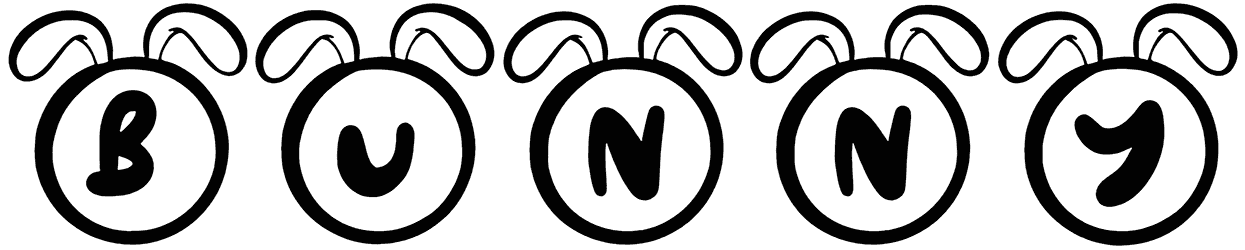
Bunny Font
With an adorable and playful letterform, your design will become popular, and this bunny font is going to provide you with a great chance to do it. Adorning the title of your easter flyer will be mesmerizing with the Bunny font. There is no offer for lowercase letters and some numbers, yet this holiday font will be so cool for many projects.